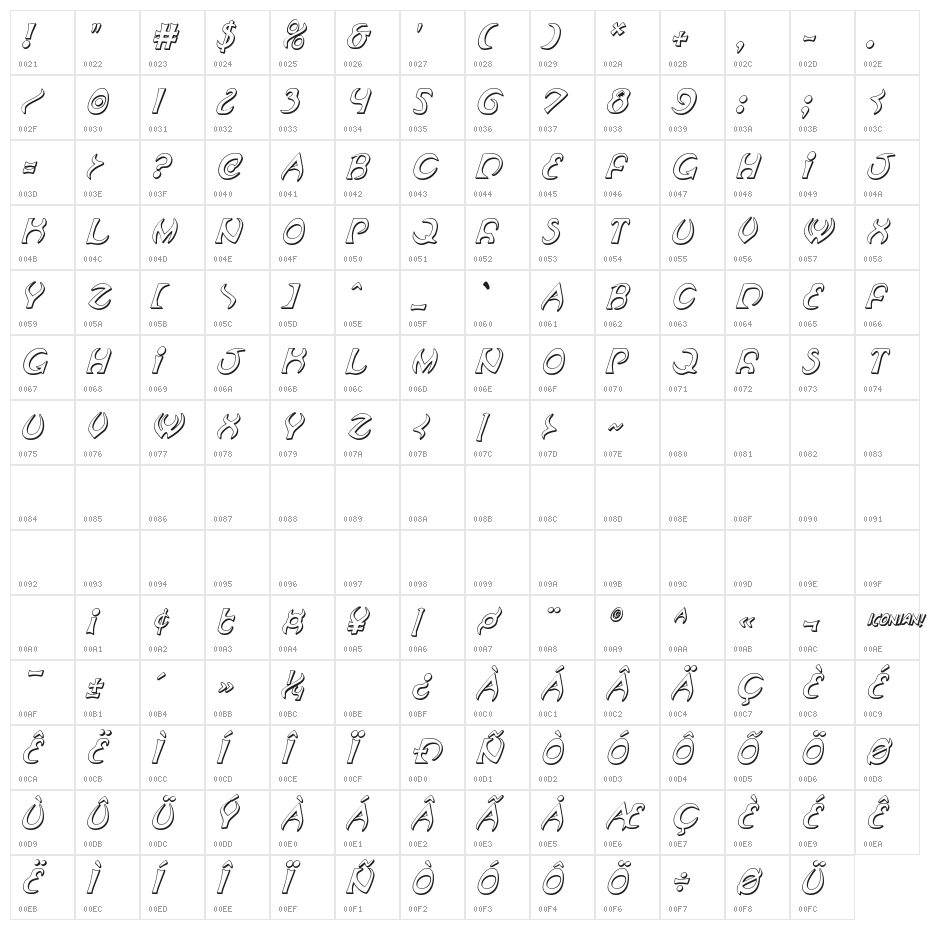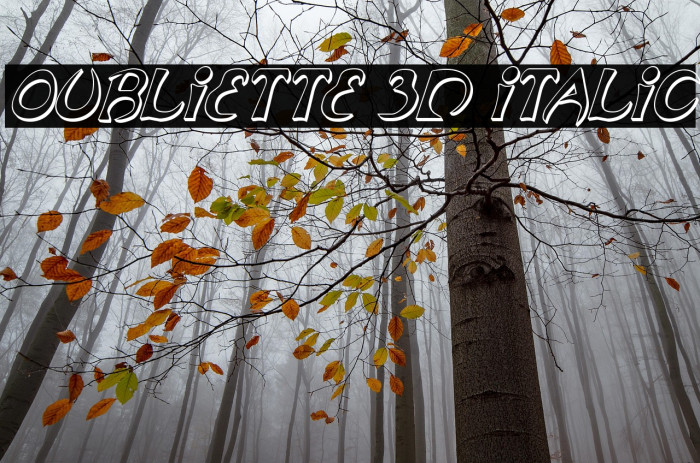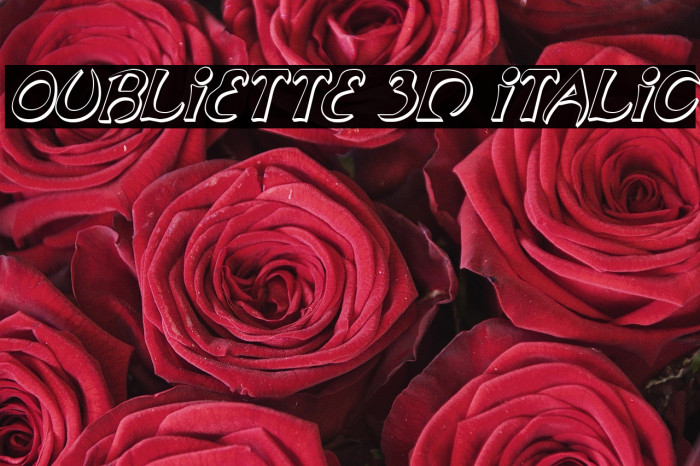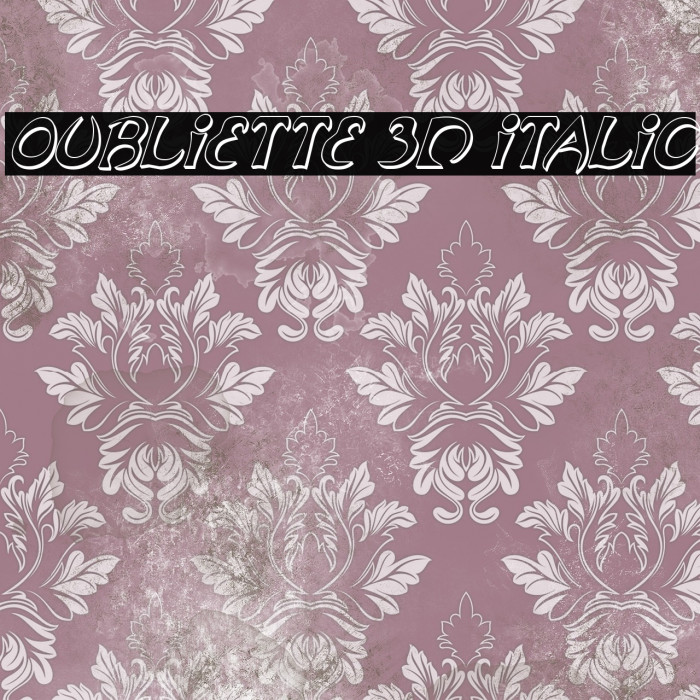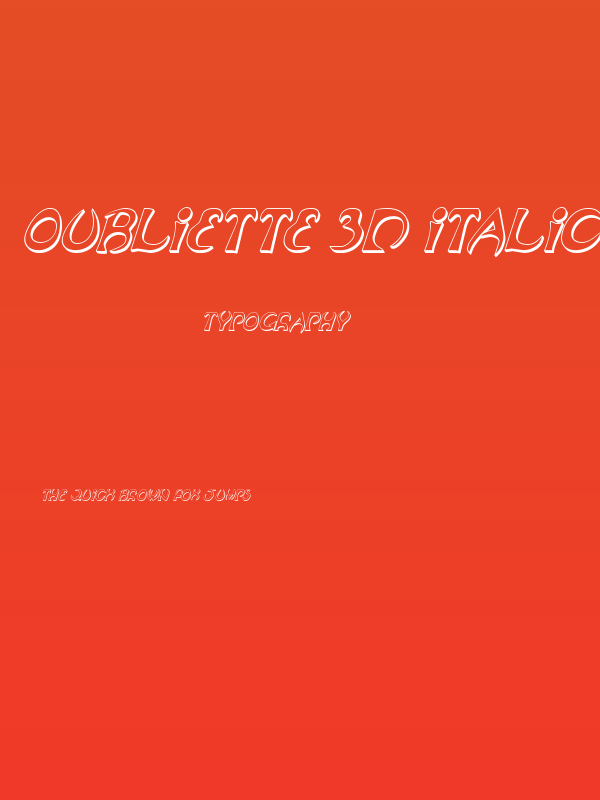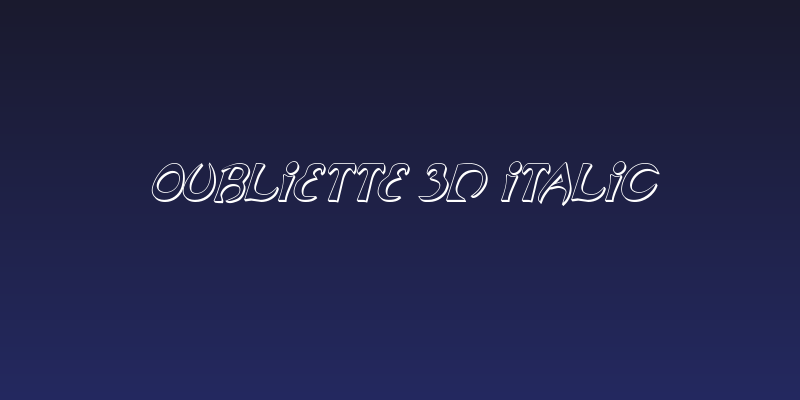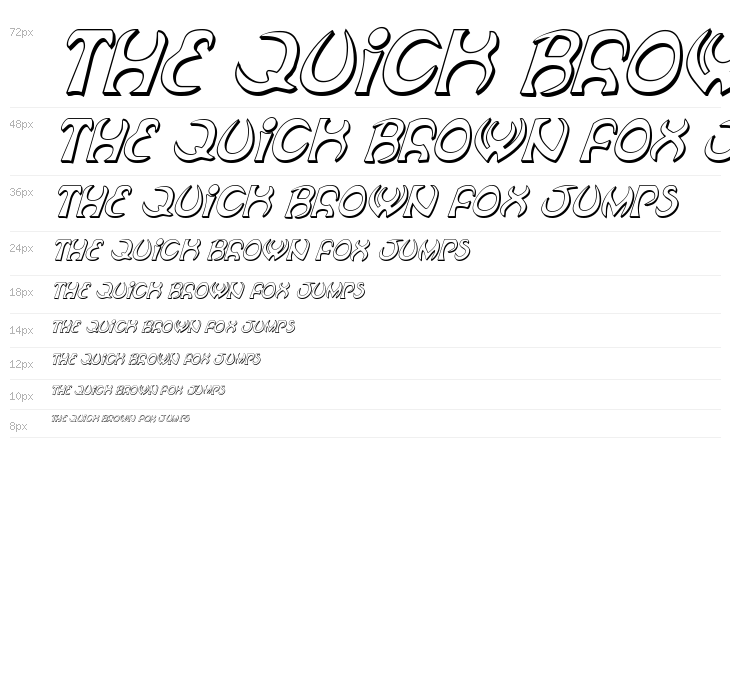
Oubliette 3D Italic Font
Oubliette 3D Italic Description
This font features a bold, three-dimensional design with an italic slant, creating a dynamic and eye-catching appearance. The letters are outlined with a shadow effect that enhances the 3D illusion, making each character stand out prominently. The style is decorative, with a playful yet sophisticated flair, suitable for projects that require a strong visual impact. The uppercase and lowercase letters maintain a consistent style, with smooth curves and sharp angles that add to the font's unique character. The numerals and special characters are designed to match the overall aesthetic, ensuring a cohesive look across all text elements.
| Proposed Projects | Ideal for posters, logos, headlines, and any design project that requires a bold and striking typeface. |